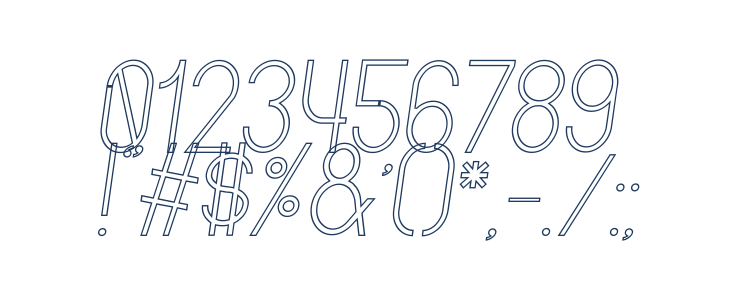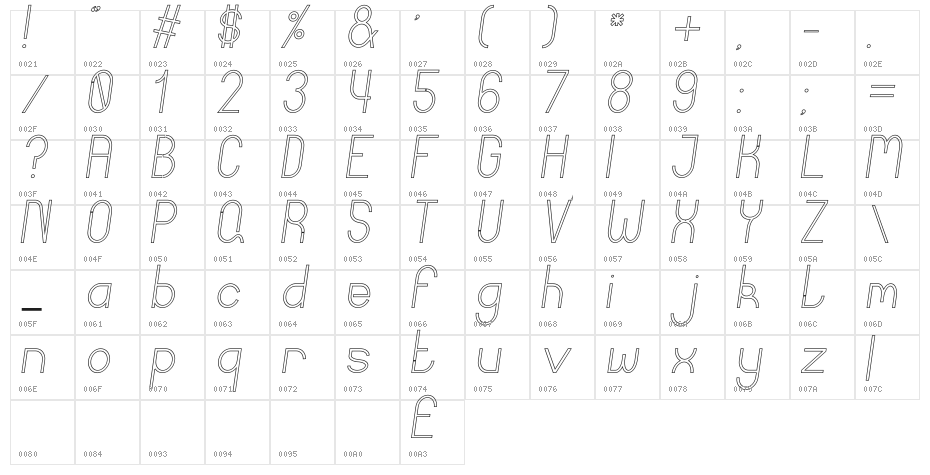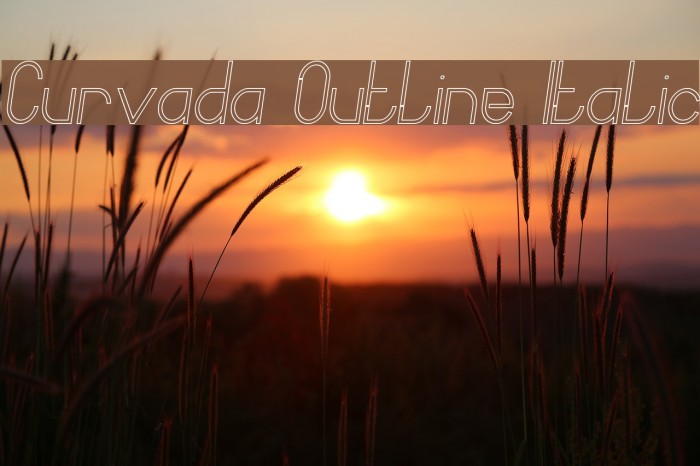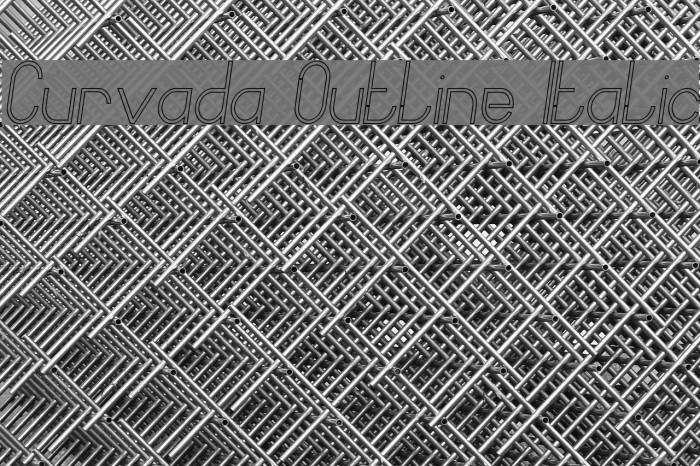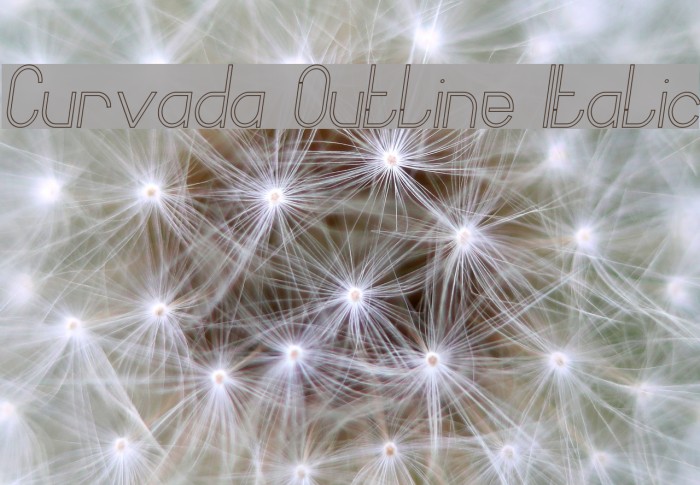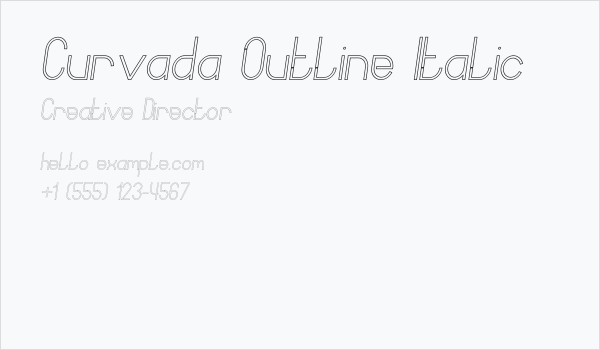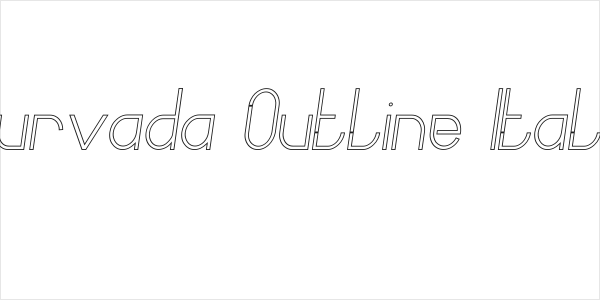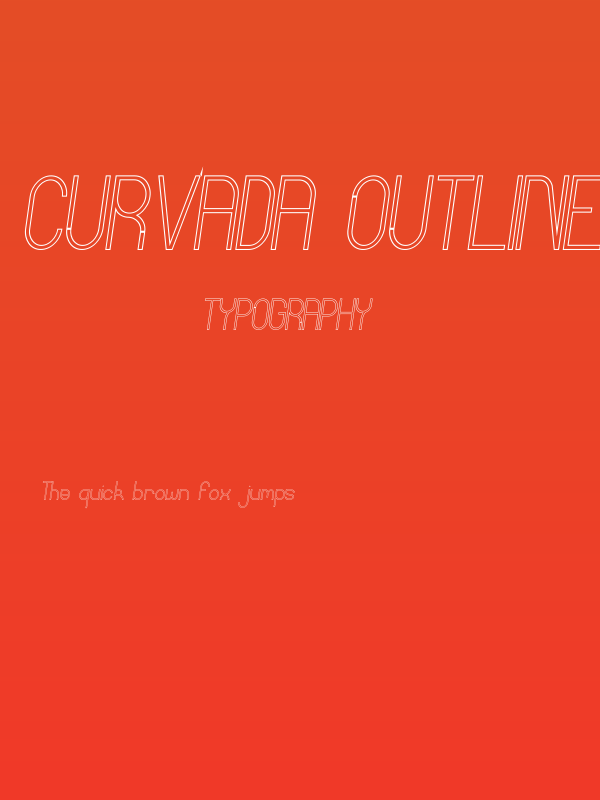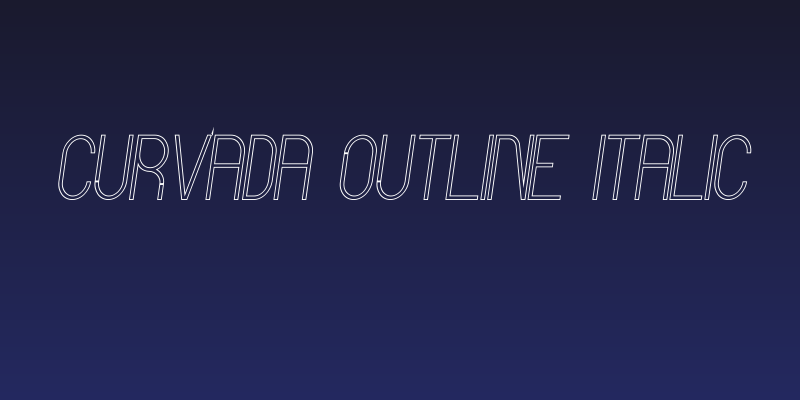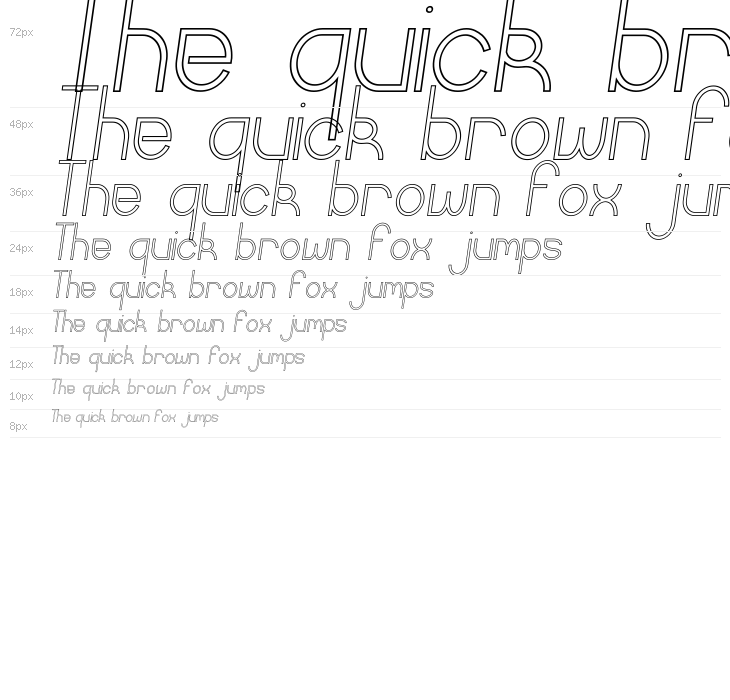
Curvada Outline Italic Font
Curvada Outline Italic Description
This font features a unique outline style with a modern and artistic flair. The characters are elongated and slightly italicized, giving them a dynamic and forward-moving appearance. The lines are clean and precise, creating a sense of elegance and sophistication. The uppercase letters are bold and commanding, while the lowercase letters maintain a consistent flow. Numbers and special characters are designed with the same attention to detail, ensuring uniformity across all elements. This font is perfect for projects that require a contemporary and stylish touch.
| Proposed Projects | Ideal for branding, posters, modern art projects, and stylish invitations. |